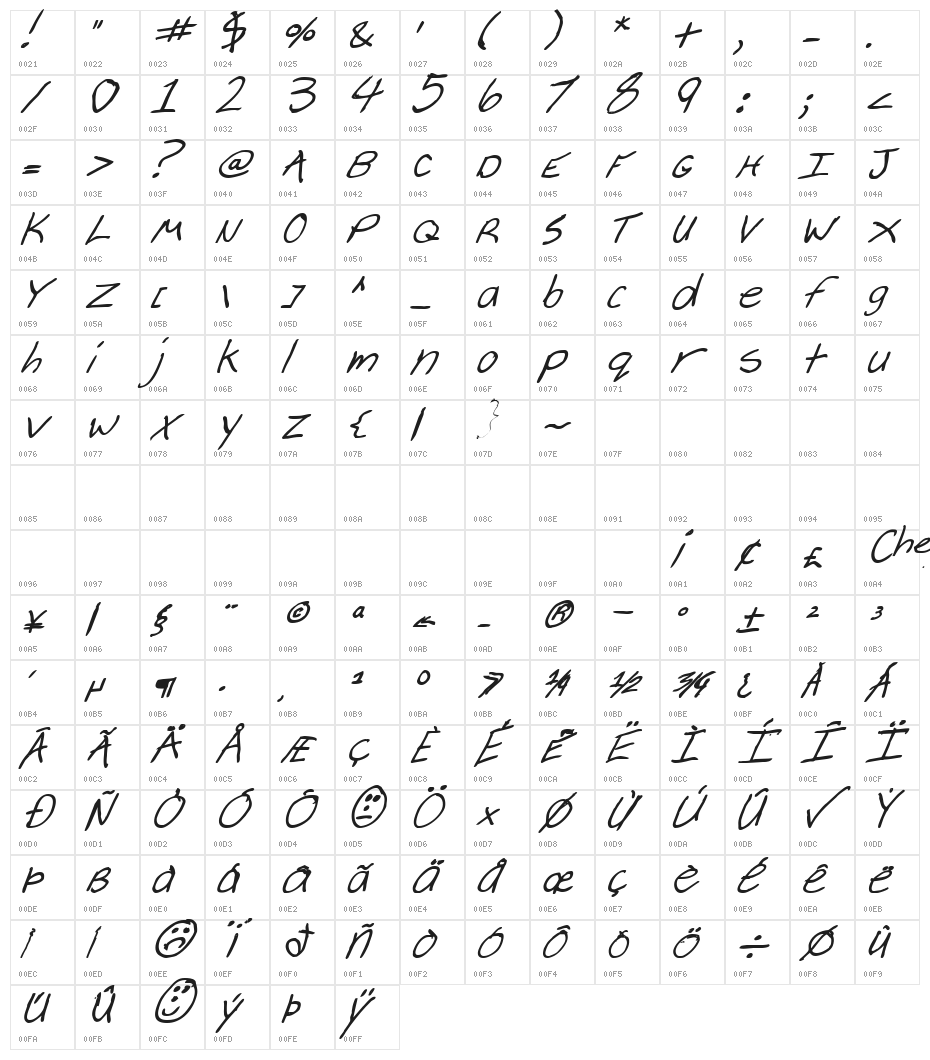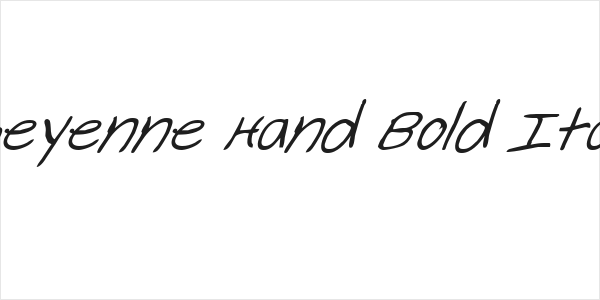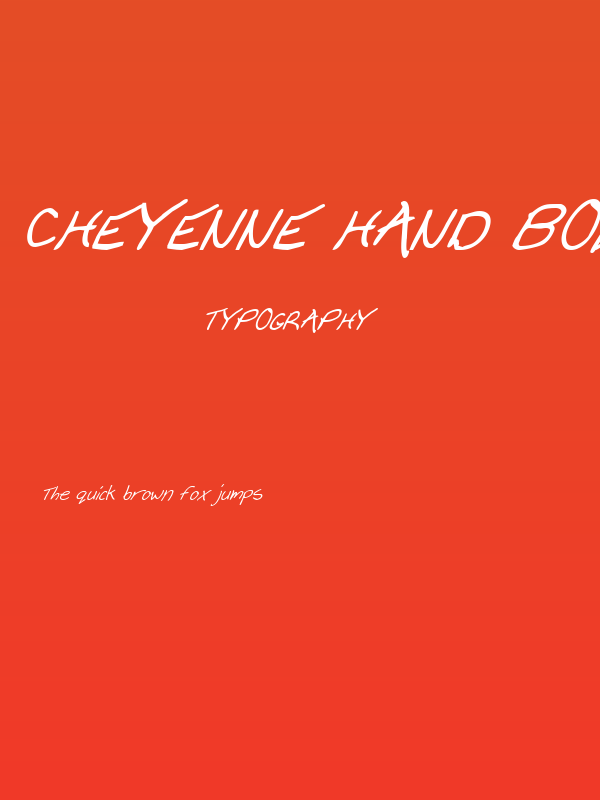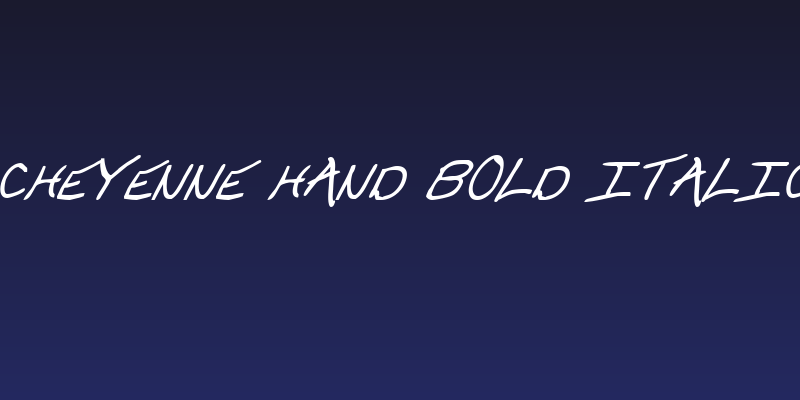
Cheyenne Hand Bold Italic Font
Cheyenne Hand Bold Italic Description
This font exhibits a bold and dynamic handwritten style, characterized by its fluid and expressive strokes. The letters are slightly slanted, giving an italicized appearance that enhances its casual and personal feel. The uppercase and lowercase letters maintain a consistent flow, with rounded edges and varying stroke widths that add a sense of movement and energy. The numerals and special characters are crafted with the same attention to detail, ensuring a cohesive look across all elements. This font's boldness makes it stand out, while its handwritten nature adds a touch of warmth and approachability.
| Proposed Projects | Ideal for personal branding, greeting cards, invitations, and creative projects that require a personal touch. |